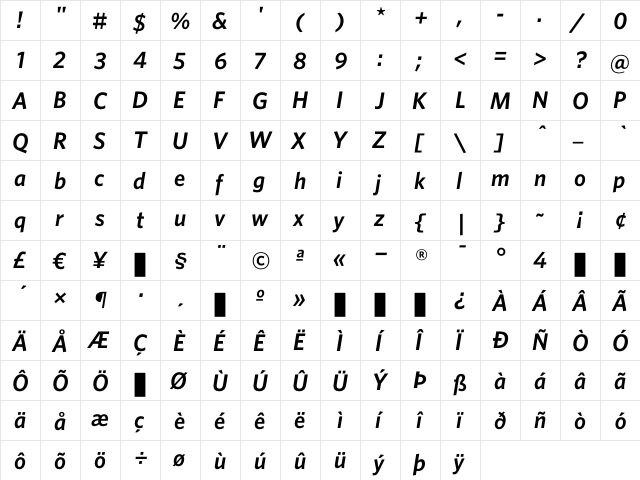
Whitney SemiboldItalic
Design Context for Whitney Typeface
Whitney offers clean, dependable letterforms without strong stylistic allegiance, making it a practical choice for designers who need flexibility. The slanted form adds forward momentum and visual energy. Its bold stroke weight gives it real presence on the page.
Pro Tip: Use Whitney for emphasis, pull quotes, and subheadings where its slanted energy can add rhythm to the layout.